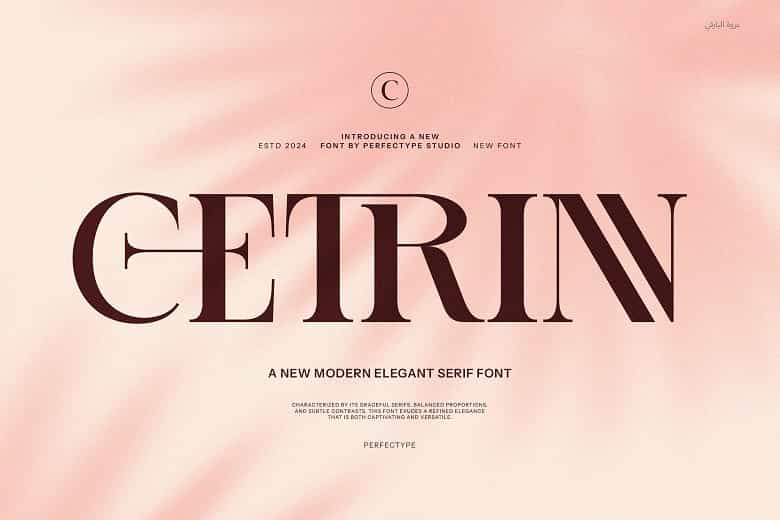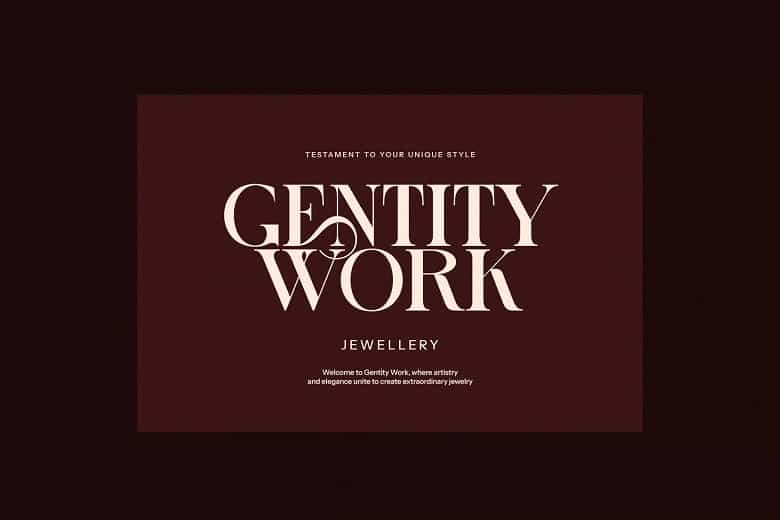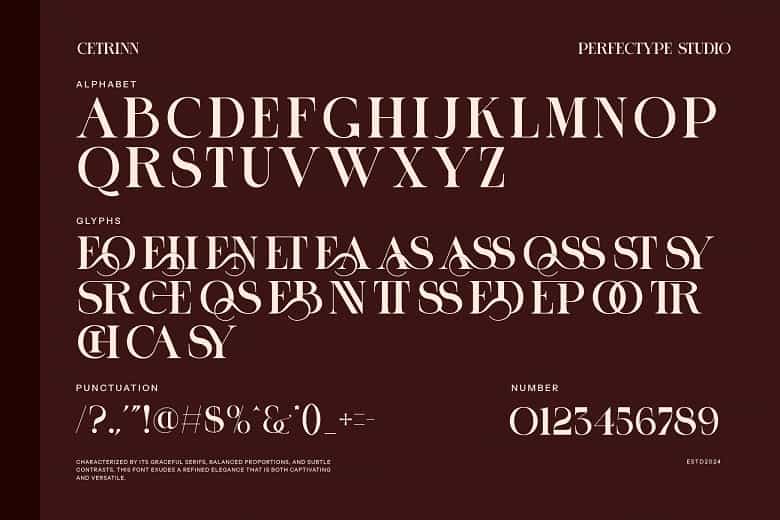
Cetrinn is a new modern elegant serif font with a clean and minimal design that will give your work a stylish and up to date look. It is straight edged and has a touch of curves to it to make it suitable for designing a professional business like appearance. Great for headlines, logos, and branding, Cetrinn gives a nice touch to any work that you are undertaking.